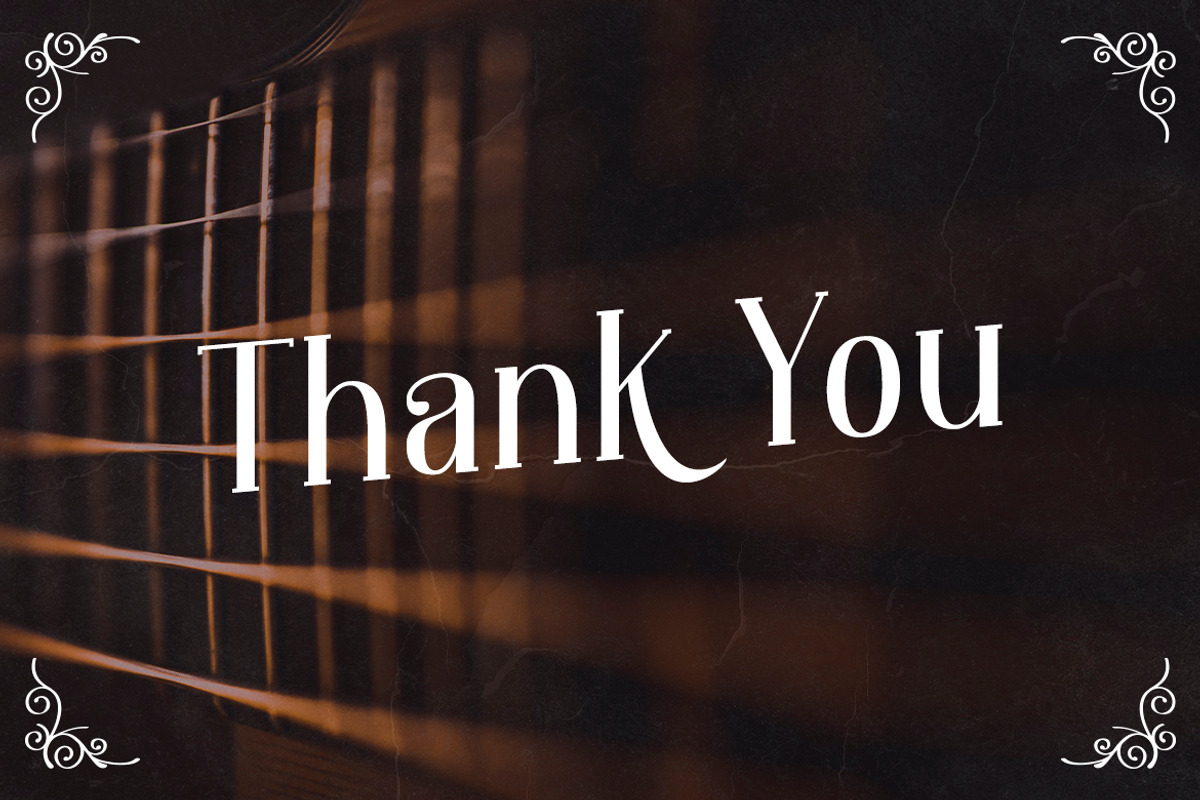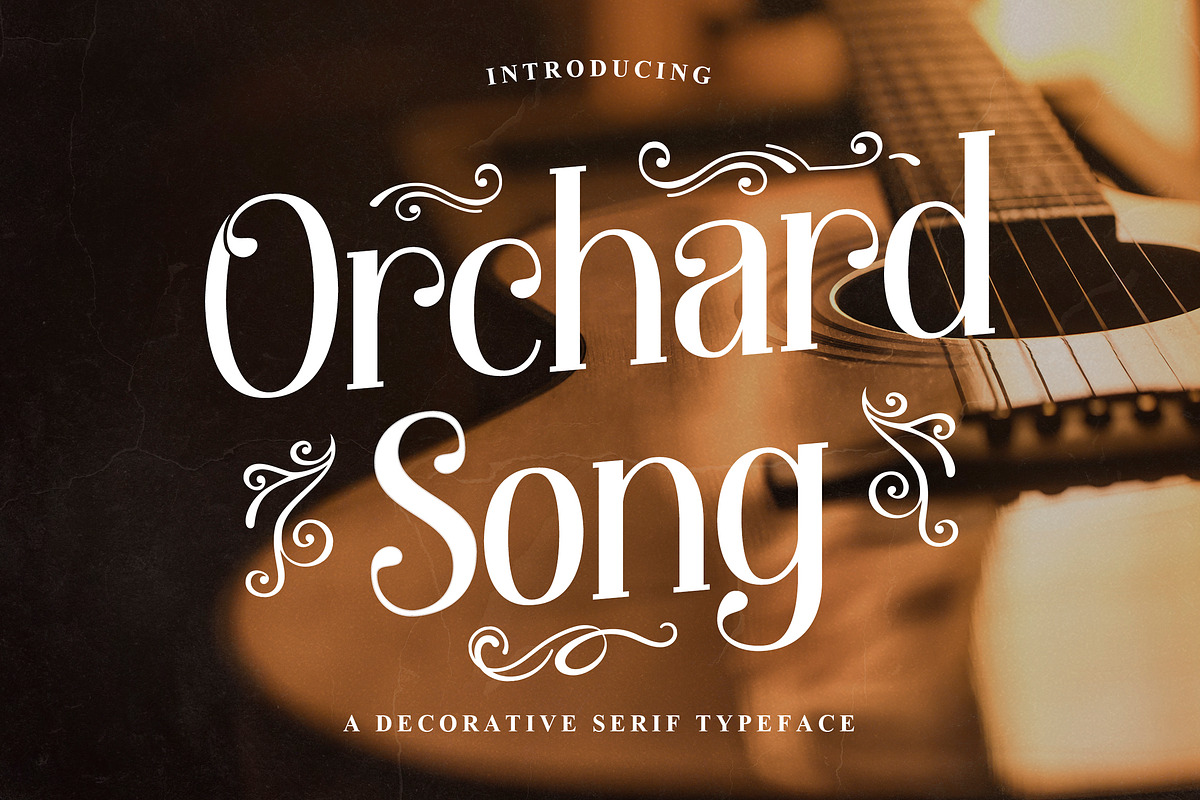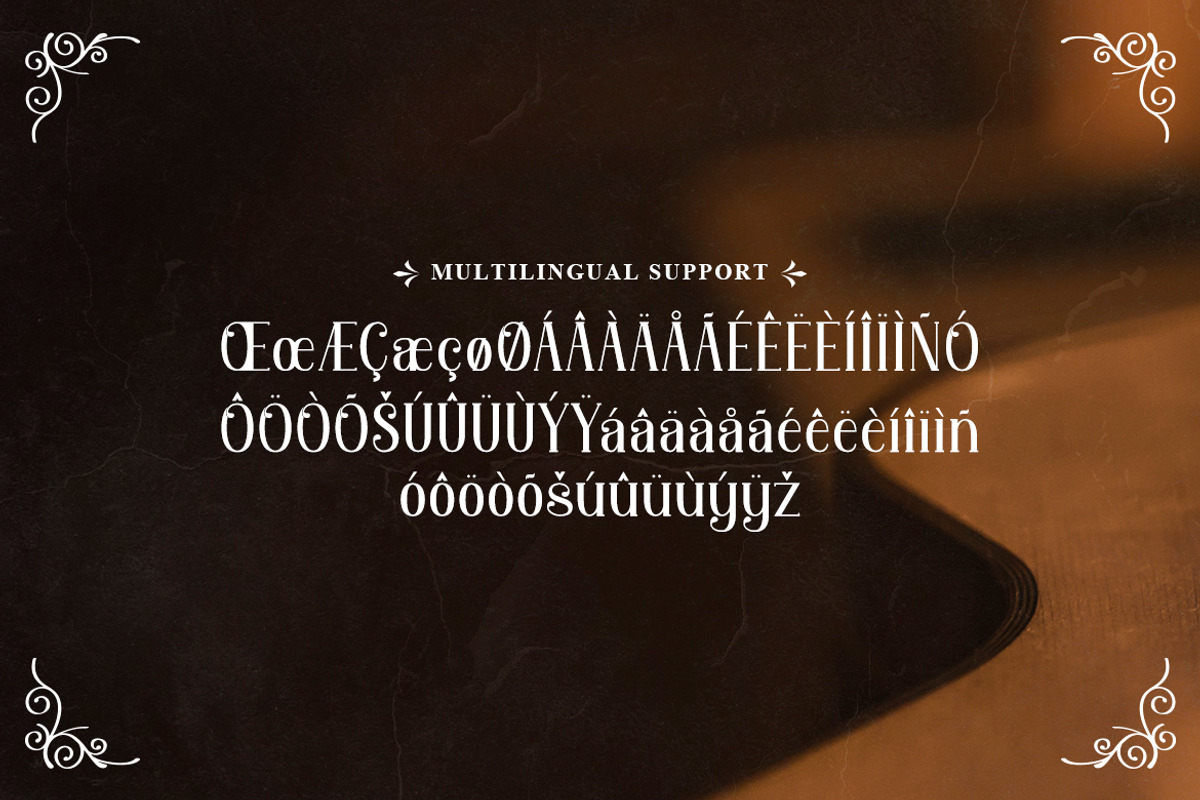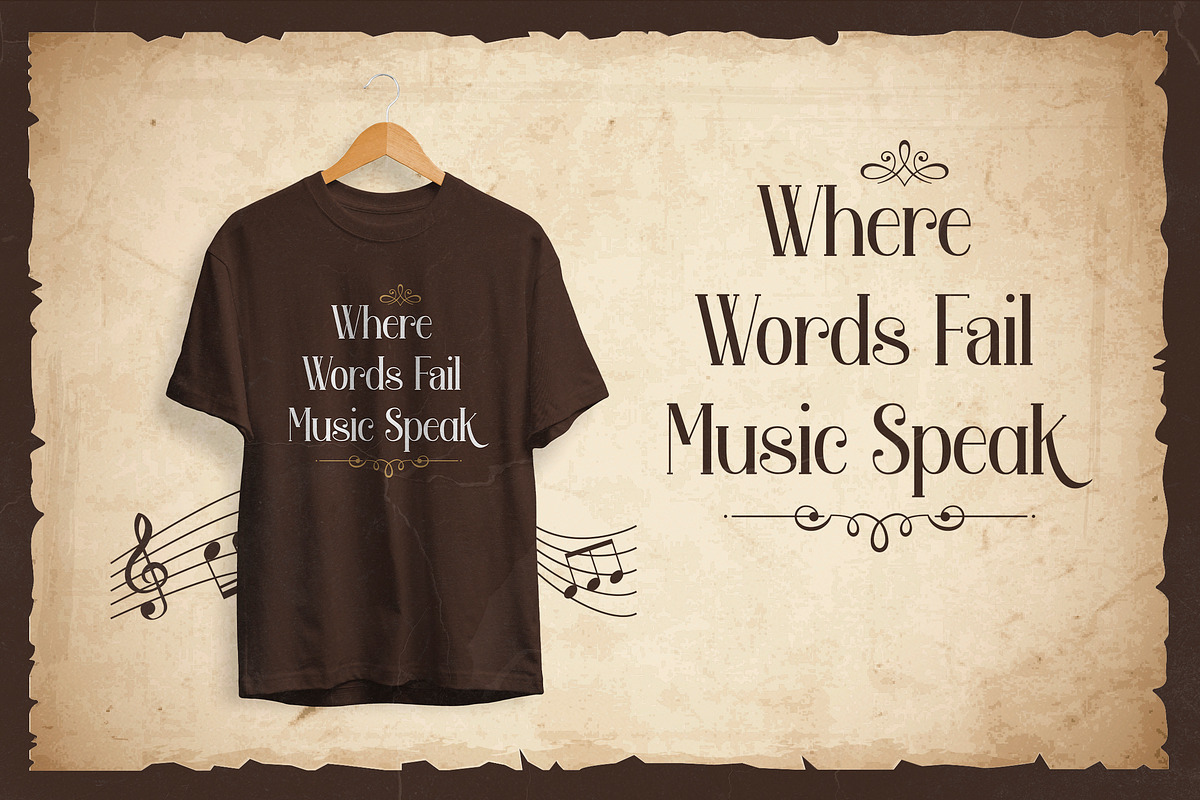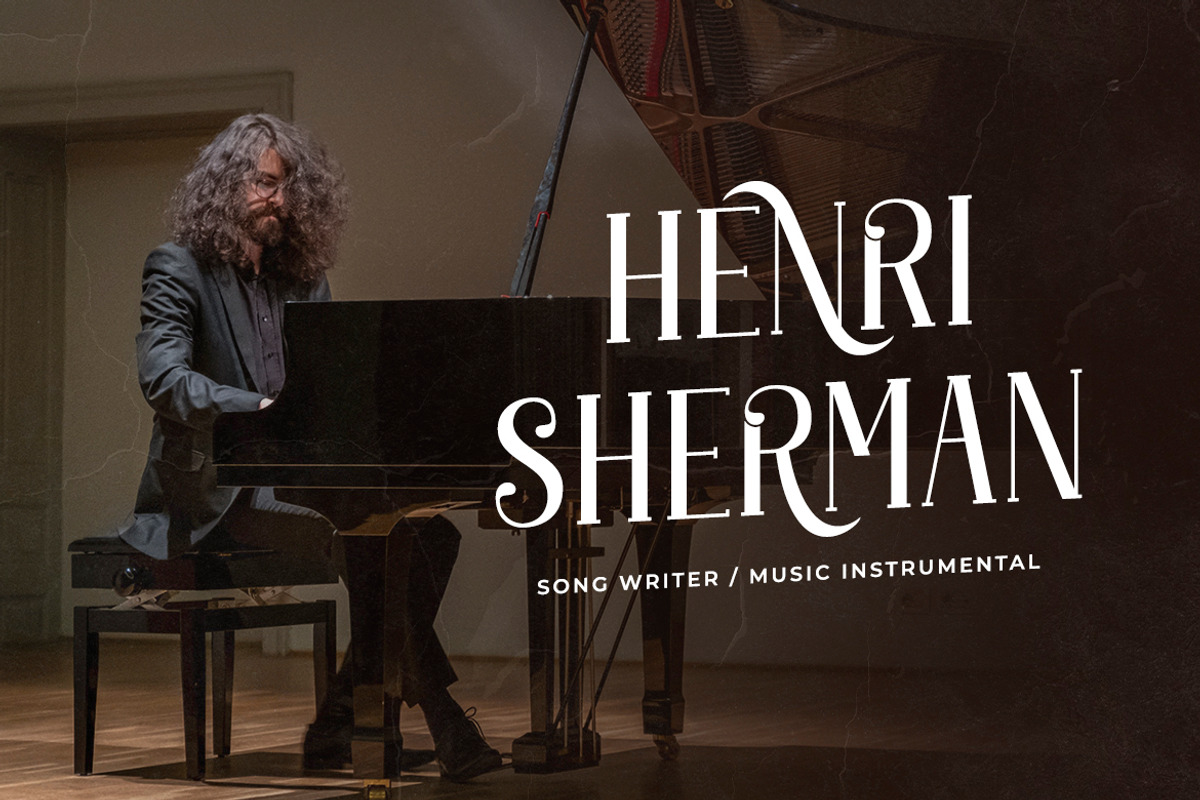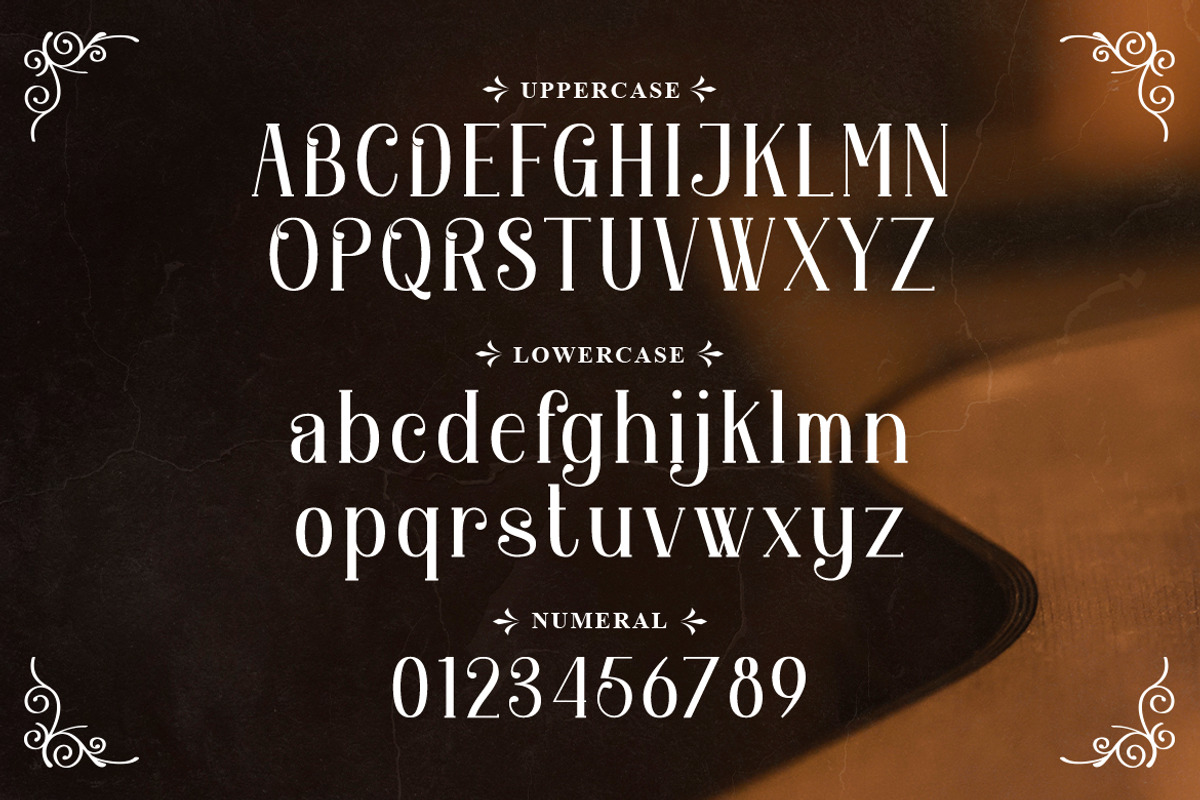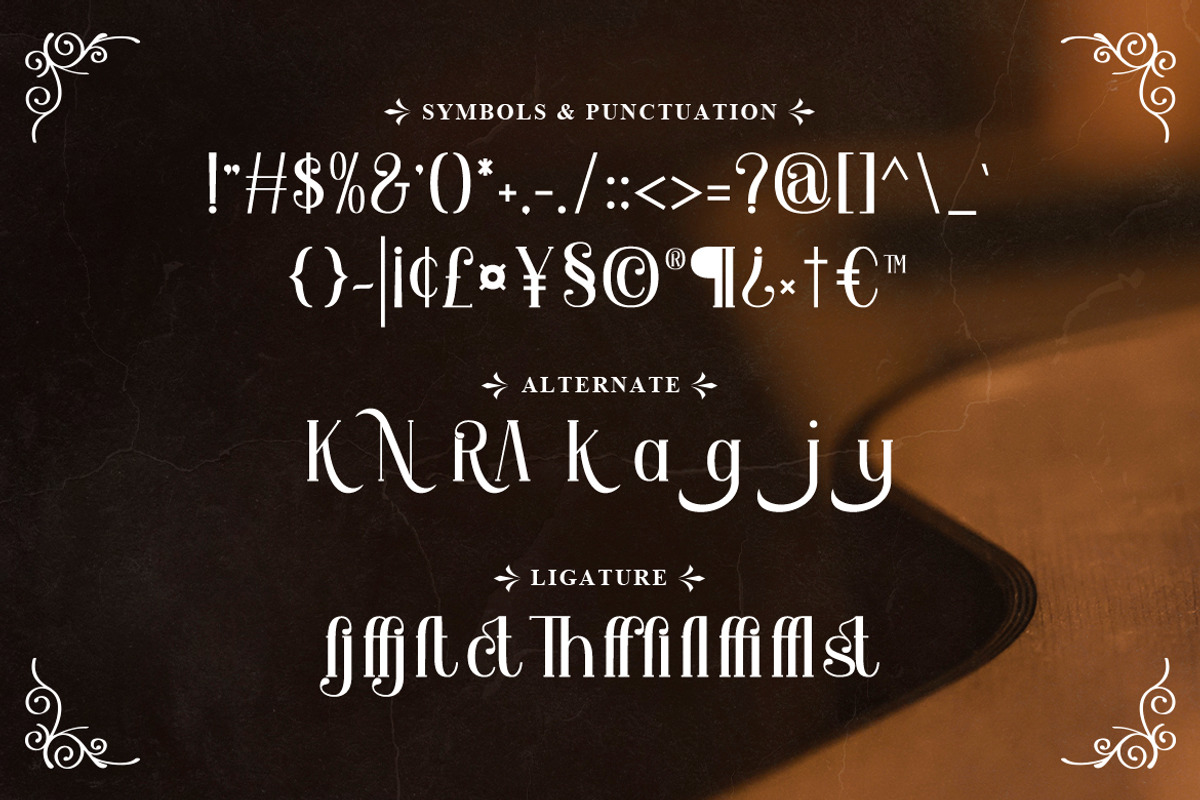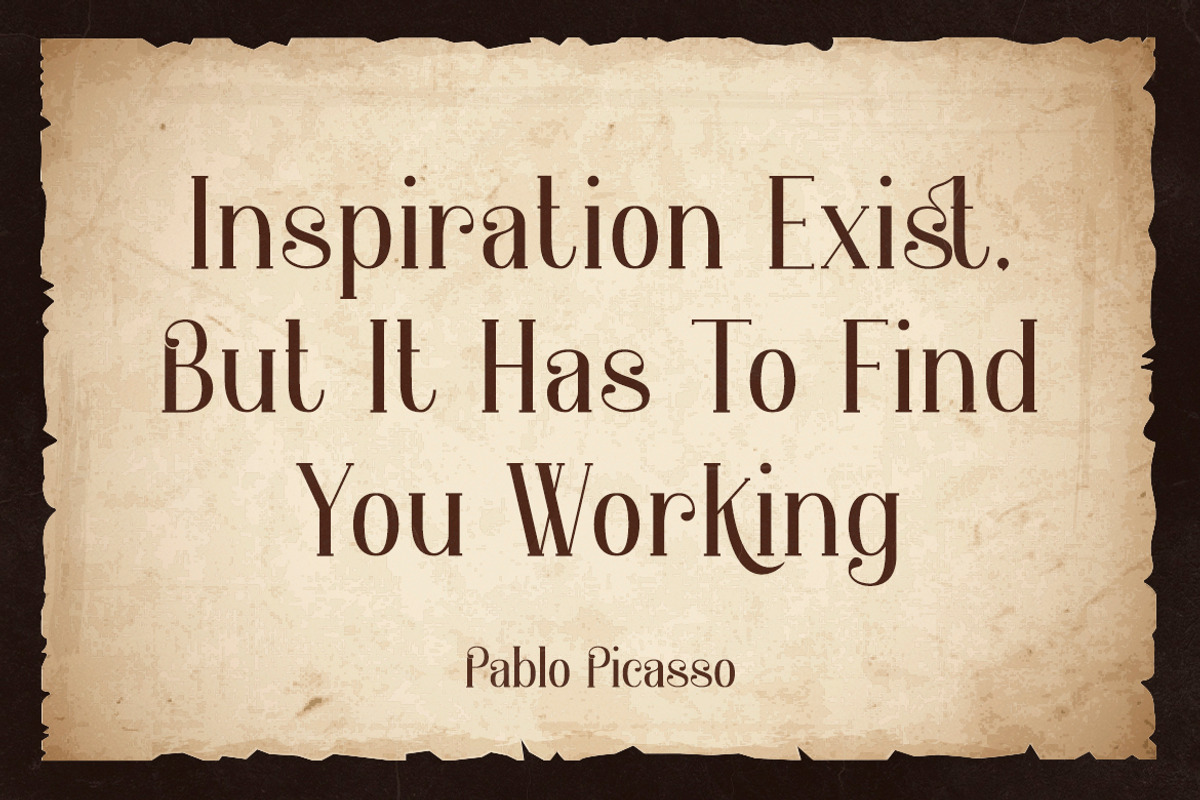
Orchard Song - Decorative Serif
Orchard Song is a decorative serif font for a wide variety of designs. Also its perfect for musical theme or musical instrument design! Great for your personal needs, promotional projects, gifts, scrapbooks, printing, and much more.
- Symbols & Punctuation
- Numeral